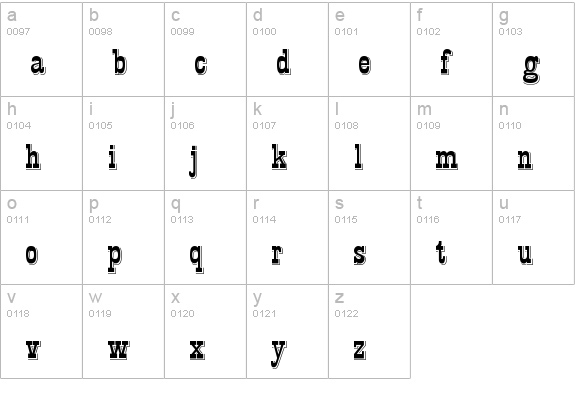
Circus MN Font Details
Circus MN font is a whimsical and playful typeface that brings a touch of vintage charm to any design project. With its bold lines and quirky shapes, this font captures the fun and excitement of the circus. Whether you're working on a poster, logo, or invitation, Circus MN font is sure to make your text stand out. The best part? Circus MN font is completely free to download at FontsMarket.com. That's right, you can add this unique and eye-catching font to your collection without spending a dime. So why wait? Download Circus MN font today and let your creativity run wild with this delightful typeface.